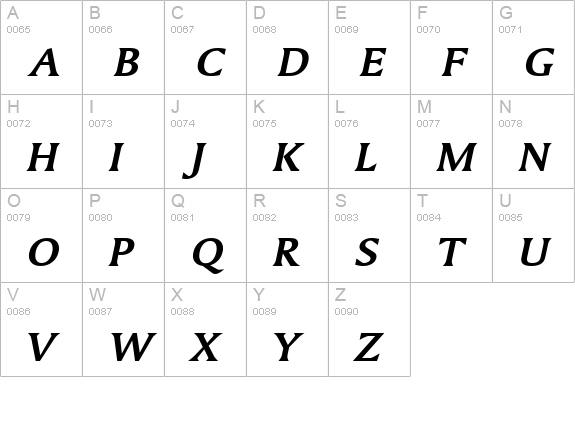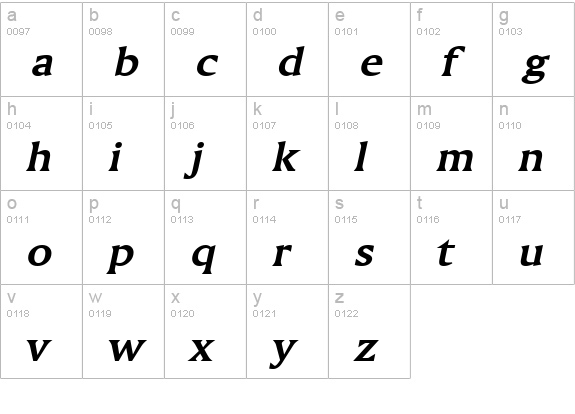
Ameretto Wide BoldItalic is a distinctive, extended-width variant in the Ameretto typeface family \xE2\x80\x94 well suited to design and typography projects.
Ameretto Wide BoldItalic is a stunning and versatile font that exudes elegance and sophistication. Its bold and italic design adds a touch of modernity while maintaining a classic appeal. This font is perfect for creating eye-catching headings, logos, and branding materials. The best part about Ameretto Wide BoldItalic is that it is available for free download at FontsMarket.com. This means that you can easily access and use this beautiful font in your design projects without any cost. Whether you're a graphic designer, photographer, or content creator, this font is sure to elevate your work and make it stand out. With its unique style and professional look, Ameretto Wide BoldItalic is a must-have font for anyone looking to make a statement with their designs. Download it today and unleash your creativity with this exceptional typeface.